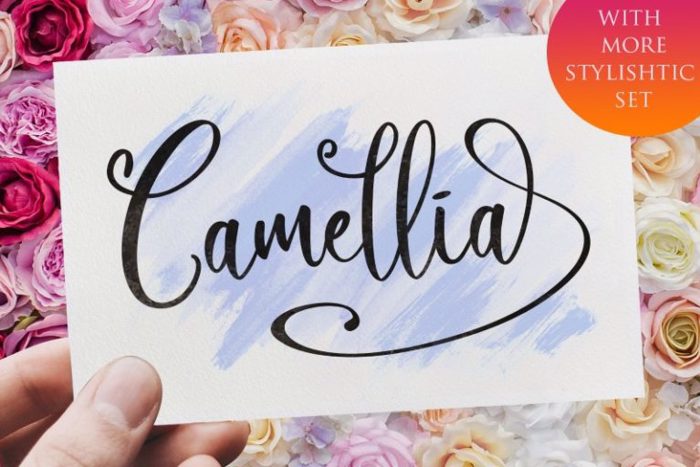
Camellia Font
Camellia Script! This font suitable for your design project, especially for branding, wedding, social media campaign, advertising, and lettering. With the combination of elegant and casual style.
Features include:
• Alternates
• Ligatures
• Stylistic Sets
• Multilingual Supports
• PUA Encoded
• Numerals and Punctuations